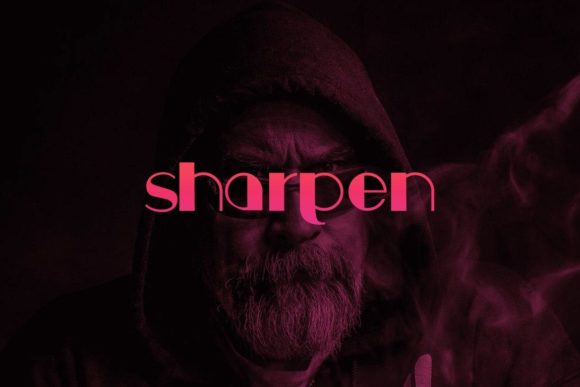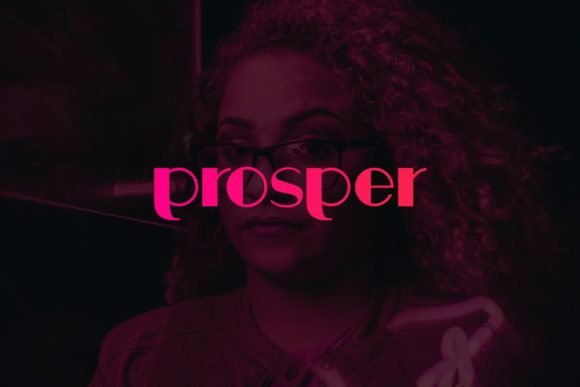
Introduction to Prosper Font
Prosper is a bold yet stylish display font.
If you’re looking for a font that could make your design stand out in a beautiful way, Prosper is your best choice .
Why Choose Prosper Font?
Prosper Font offers exceptional quality and versatility, making it a valuable addition to your design toolkit. Whether you’re creating for personal projects or commercial use, Prosper Font delivers professional results.